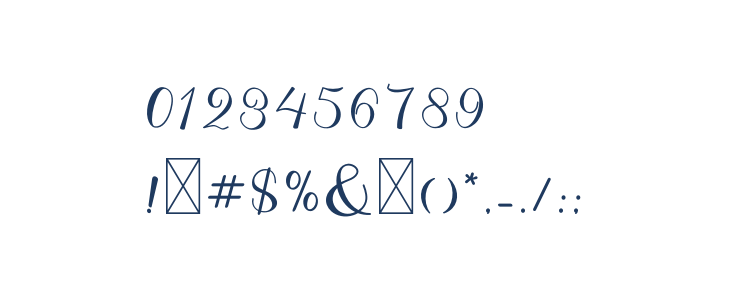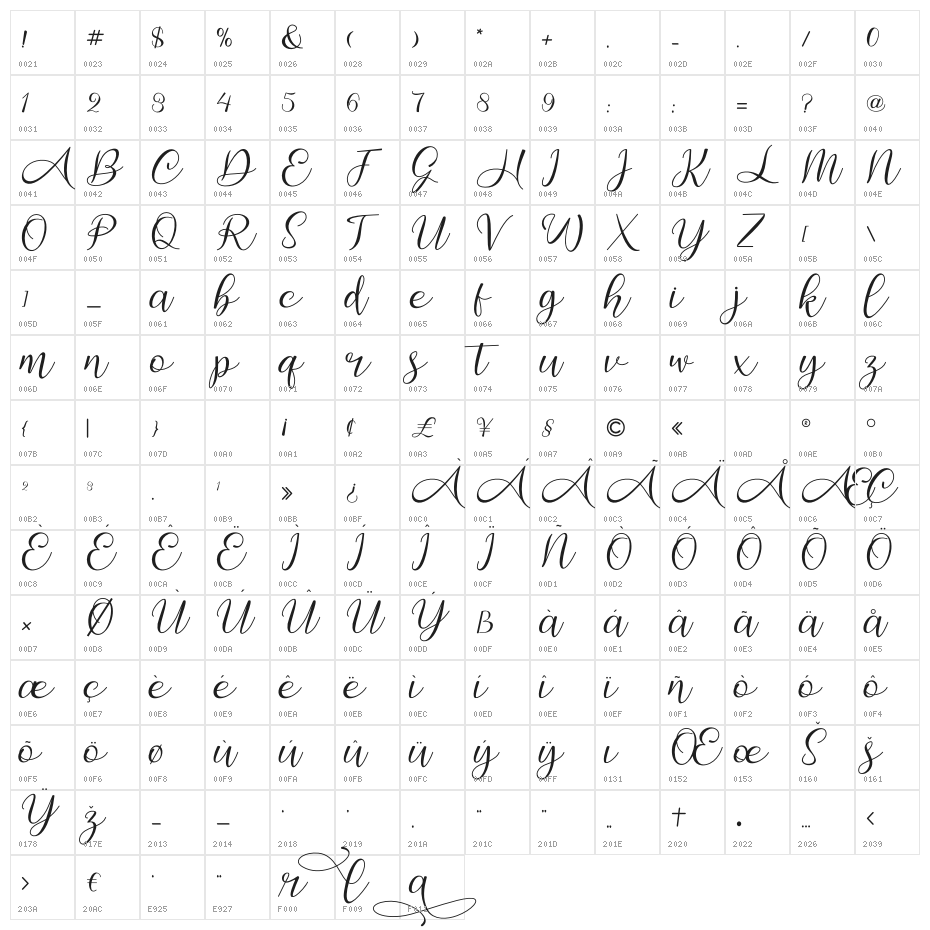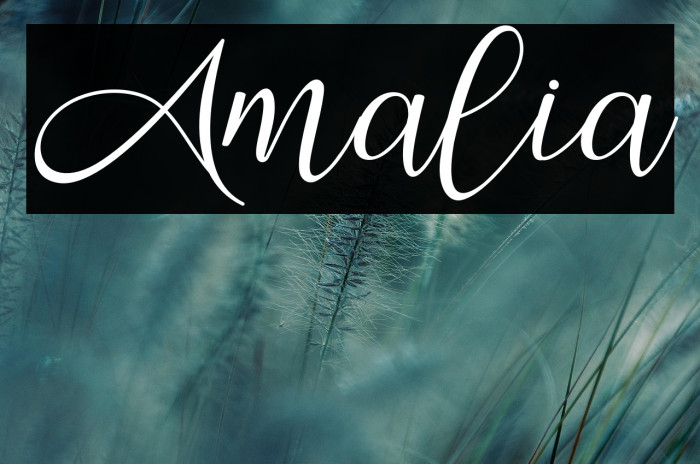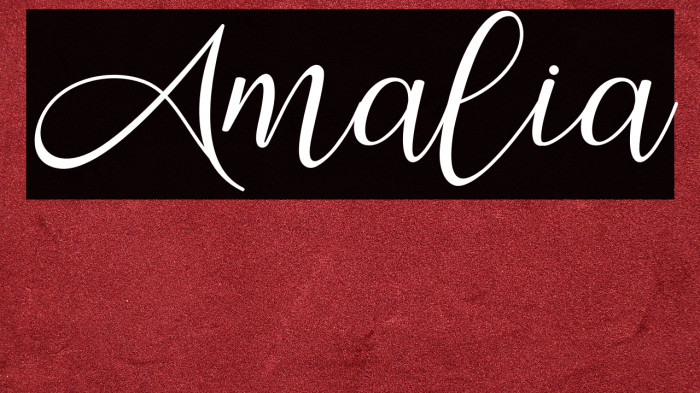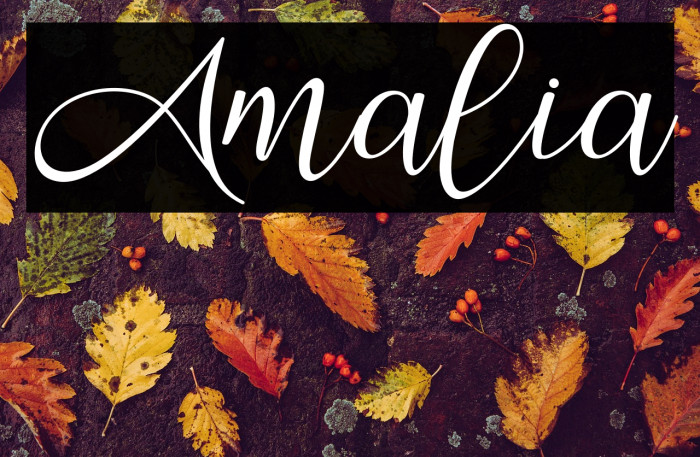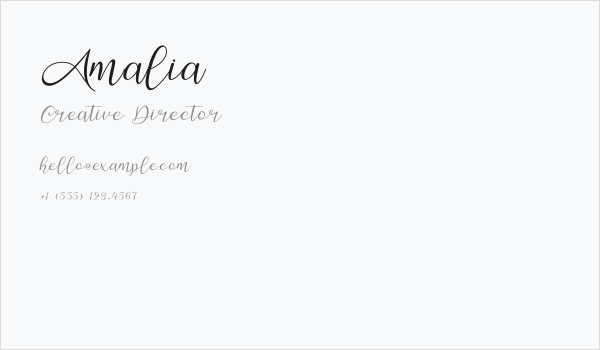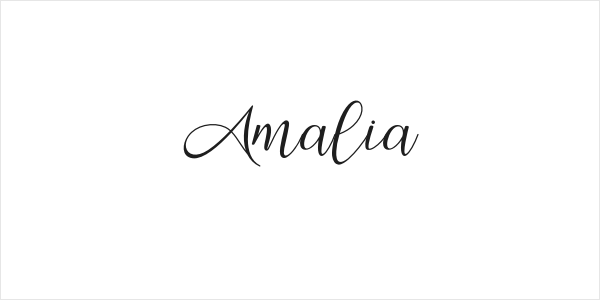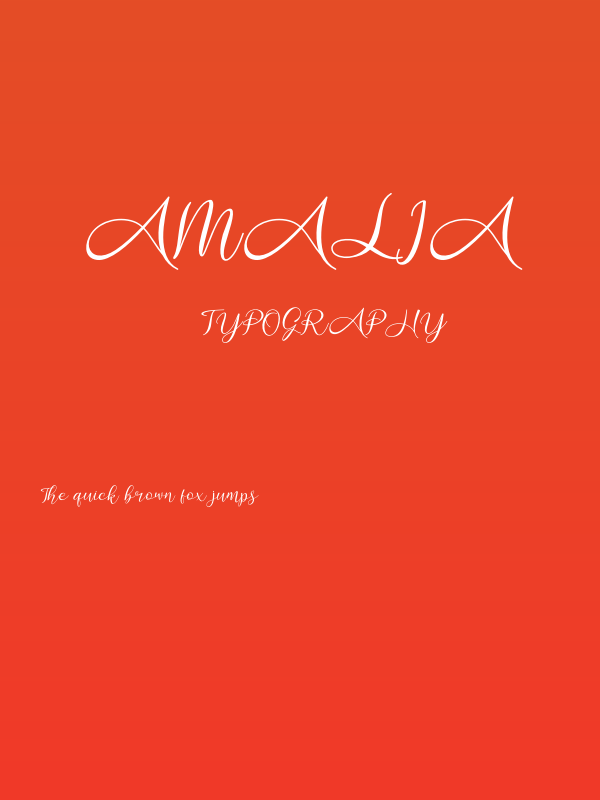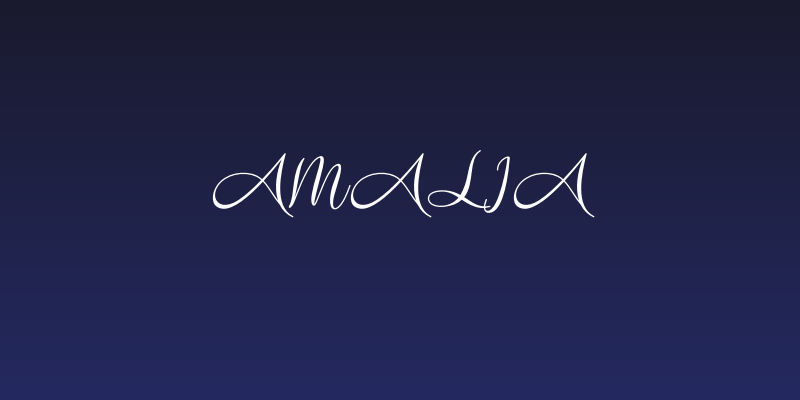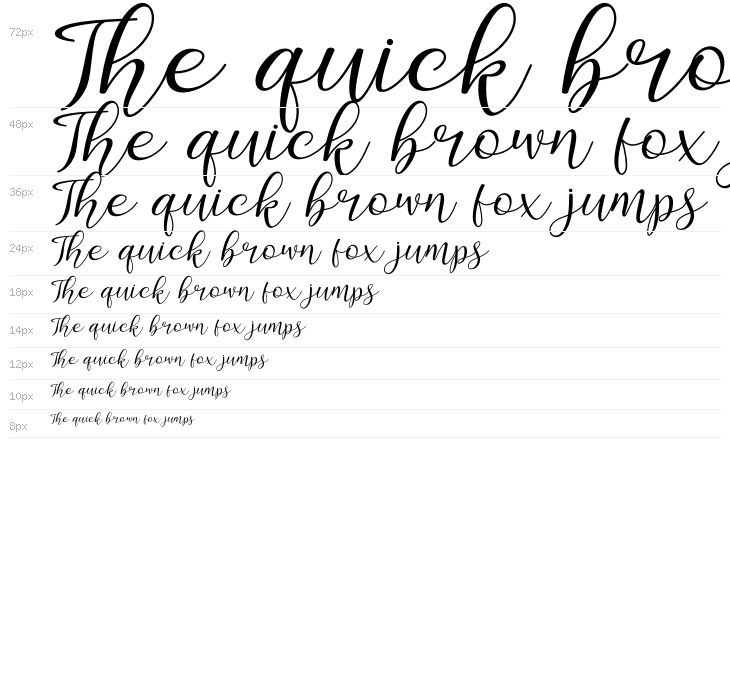
Amalia Font
Amalia Description
This elegant script font features a flowing, cursive style with smooth, connected letters that evoke a sense of sophistication and grace. The uppercase letters are slightly more ornate, with flourishes that add a touch of drama, while the lowercase letters maintain a consistent, fluid motion. The numerals are clear and easy to read, complementing the overall aesthetic. Special characters are thoughtfully designed, maintaining the font's cohesive look. This font is perfect for projects that require a personal, handwritten touch, such as invitations, greeting cards, or branding materials.
| Overall Style | Elegant, Sophisticated |
| Use Case | Invitations, Branding, Decorative Text |
| Proposed Projects | Ideal for wedding invitations, elegant branding, personal stationery, and decorative quotes. |